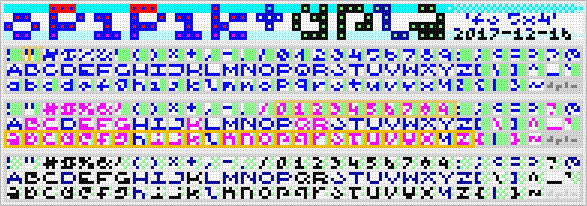
Good job! (and welcome back, again.) Yes, 5x4 is a pretty difficult very low-res design (less tough than e.g. 4x5 and 4x4, cf. AGH.) Keep up your interesting experiments and usable fonts.
Just finished the ASCII set, so now it's a complete font according to dpla's criteria.
Well done! (it's not my criterion, but Unicode's b.t.w. - we need standards, else 'fonts' are personal and not quite usable.)
also the oversized grave accent is there just for the font not to clash.
So, after reading there, I complete by detailing even more (since you tend to specialize into minimal pixel fonts, fine!).
Your FLAWS of design:
• Lowercase 5x4 grid : it collides the height of the grid reserved -by priority- to the uppercase (5x4), which makes e.g. your lowercase "p" behave as a uppercase "P" (which is more serious than an ambiguity; gqyz have almost the same issue, which can be fixed too, I showed you in a tougher design);
• Grave accent : FS hack or not, the sad fact is that your "fs 5x4" is actually 5x5 by doing so (you even ask the user to fix this glyph by cloning it, I assume, which makes your '5x4' design quite unusable as is in US-ASCII);
• You could not design a strict 4x4 set of numerics (quite fixable "1" too);
• We can all see how you designed this font: likely a strict 5x4 uppercase first, next the 4x4 numerics (incomplete job for a strict sub-grid), the quite loose (mixed grids) lowercase (variable x-height which is unserious), and the punctuations/symbols with no limitation of grid. Again, you cannot compare a strict and hard 5x5 (in 3 out of 4 US-ASCII subsets) without your creation that took you only a few minutes of fun, even though I agree that stretching everywhere to 5x5 is not recommended for any context (in pixel art, the even look might help in some situations). This point is not a direct flaw, but if one considers the incoherent subgrids, we can spot many errors;
• '" and "' are unusable for the human (' duplicates "), and -I repeat this here since 2013- this monospace hack is poor (see e.g. this link) and should be avoided (even if we'd prefer these punctuations straight).
So, what I'll recommend you (to try - not exhaustively):
unchanged 5x4 uppercase (even though I already indicated a few ambiguities - but you still need to learn pixel art, see. e.g. "P" v.s. "R");
+ 4x4 lowercase (so that you don't waste the grid anymore and can add your 4 x-height ex-hacks)
+ 3x4 numerics (not 4x4 any longer because of the latter suggestion)
+ (almost?) unchanged punctuations/symbols (1x1 till 5x4, and not 5x5 of course, and if you need your font to be compatible as proportional, edit ' or/and ").
In my new suggestion above, I left several inconsistencies from your latest update (i.e. potential ambiguities).
I remind you of the problem: if you set a rigid rule of square or round glyphs, you lose many solutions (similarities being chosen over the discriminations).
As a result, many difficulties might spoil the readability, pixel-wise.
This is the same syndrom as wanting to put a black square in any ambiguous situation (i.e. unmastered compression = too much weight, or/and overlaid and unmodified segments of glyphs).
But in my opinion, your "fs 5x4" confirms the lack of conventional pixel art tools in the current fontstructor, especially an overview of all the grids in a strict and visual grid.
I mean, you repeated the same ambiguities, without fixing them, even without understanding why I edited your flawed glyphs (you can check and compare after the list below).
Let me give you these examples of the lack of concern in your design (if I were you, I'd use a conventional bitmap editor before any of such low-res fontstruction):
• C < G (+ 1 dot)
• K < H (+ 1 dot)
• O < Q (+ 1 dot)
• a < d (+ 1 dot)
• 6 < b (+ 1 dot)
• B ~ D (1 dot moved)
• c ~ o (1 dot moved)
• J & Ss (uncommon shapes)
• ? v.s. ! (unpaired)
• _ (n/a shortening)
• |k ~~ |< (similar)
• & ~~ &: (ambiguous)
• jftw (incomplete compression)
• non US-ASCII (providing 8-bit punctuations (quotes) is a deceptive feature in the fontstructor, I assume, so please refer to Unicode instead).
Etc.
Oh, and please bear in mind to not mixing the designs with glyphs that have the full width (5-dot here), and -a lot- simpler ones that are narrower into the main matrix, even variable/messy (like your preference here).
The best-looking monospace fonts use glyphs that have an homogeneous width.
If you need to compare my monospace 5x4 edition, with your 5x5 'monospace' 'font' (filled with proportional and easier shapes), then you might still need to learn about their contexts of use, I think (e.g. there are many cases beyond the simple differentiation of 0 v.s. O).
BOTTOM LINES:
1. your fonts are not strict US-ASCII (they have and artistic value, but none in e.g. coding as they are);
4. as always, one can free oneself from my experiments that employ the full widths (I fell sorry you did not get this), e.g. you can edit the 5x4 lowercase i into a 1x4 if you need/want (the context decides, ultimately).